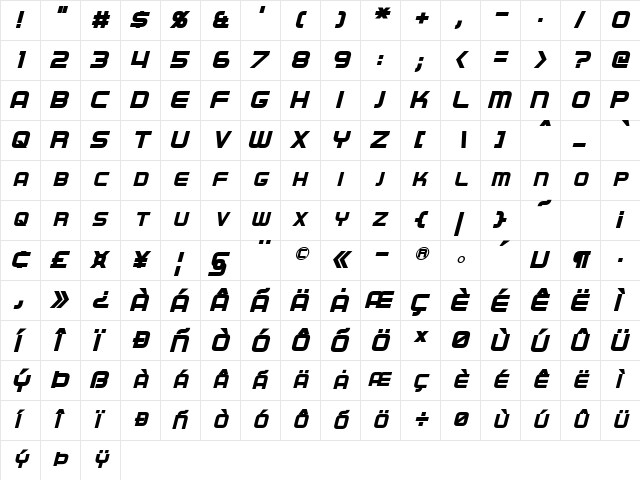
Regen Bold Italic
| Foundry | Pixel Sagas |
| Designer | Neale Davidson |
Design Context for Regen Typeface
Regen is a composed and adaptable typeface that performs quietly and consistently across a wide range of design contexts. Its italic angle brings a sense of urgency and motion to the letterforms. The heavy weight commands attention and anchors typographic hierarchies.
Pro Tip: Try Regen for annotation and caption copy alongside an upright companion — the contrast in angle creates a dynamic but ordered typographic system.